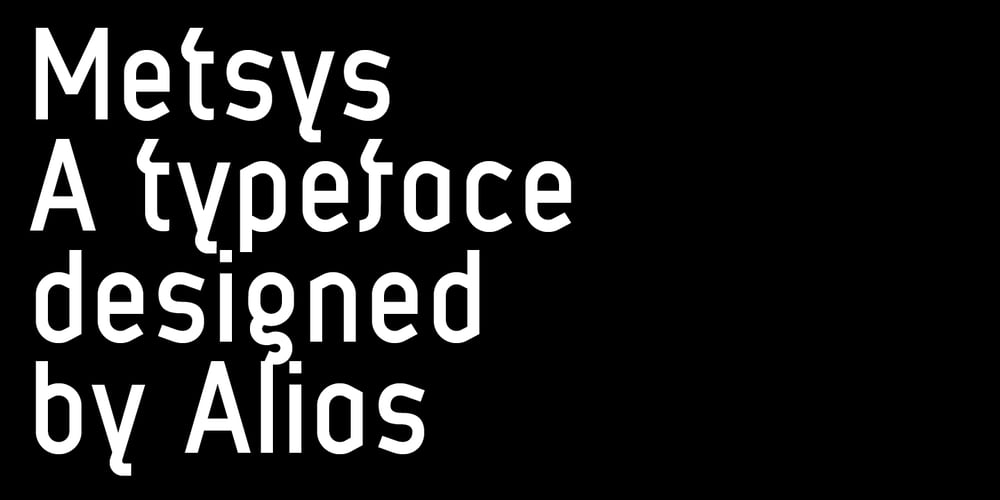
Metsys
Metsys font
Metsys Font Family was designed by Gareth Hague, David James and published by Alias Collection. Metsys contains 5 styles and family package options. A typeface derived from a logotype designed for New-Age electronic band System 7 in the early 1990s. Metsys is a soft-tech take on the monoline aesthetic. Letterforms are purified, rounded almost abstract graphic shapes.